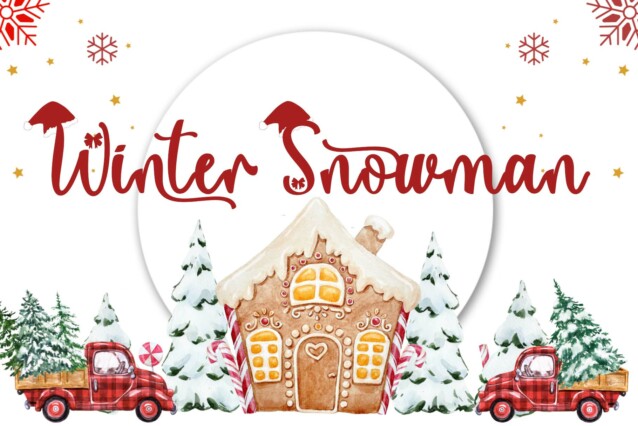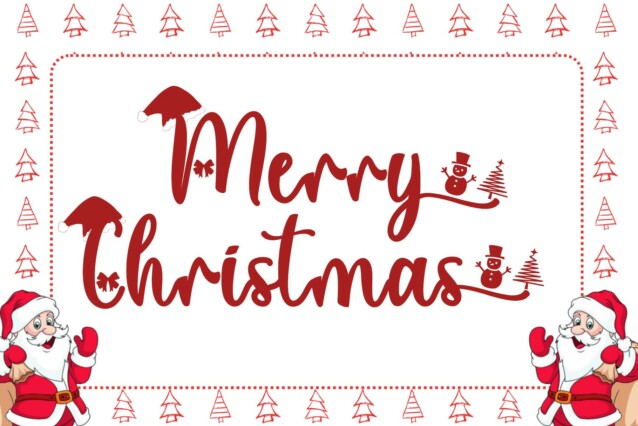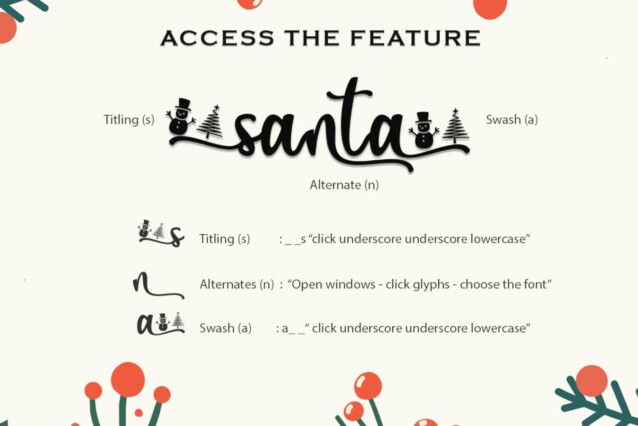
Christmas Laurent Font
Christmas Laurent Font is a charming and festive handwritten font adorned with delightful Christmas ornaments. Its elegant strokes and decorative accents bring a touch of holiday magic to your design projects, making it perfect for creating warm and inviting Christmas-themed materials.